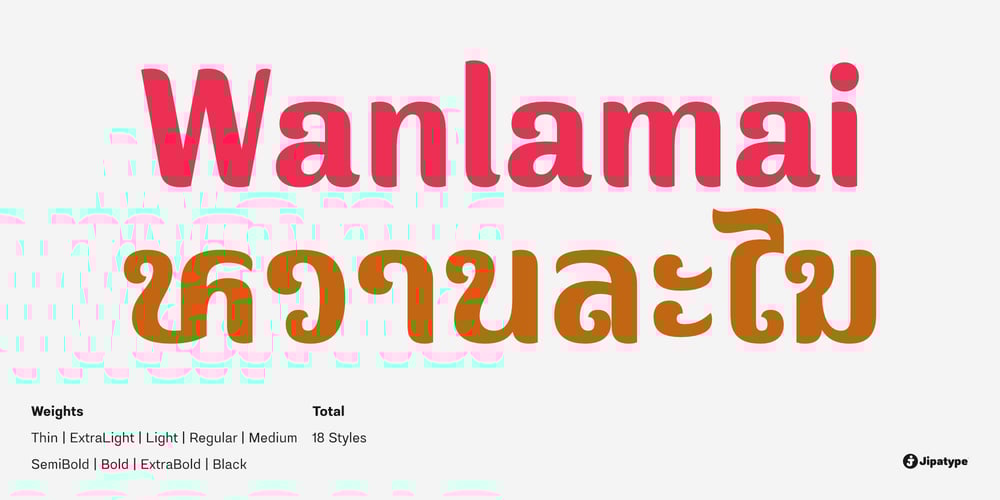
Wanlamai
Wanlamai font
Wanlamai Font Family was designed by Anupap Jaichumnan and published by Jipatype. Wanlamai contains 18 styles and family package options. Wanlamai is a distinctive typeface featuring soft, rounded strokes. Its letterforms are carefully designed to harmonize both Thai and Latin scripts, creating a warm, approachable feel. The modern simplicity of Wanlamai makes it ideal for projects that require clarity—such as online media, packaging, or advertising posters. Offered in 18 styles, it supports both Thai and Latin-1.